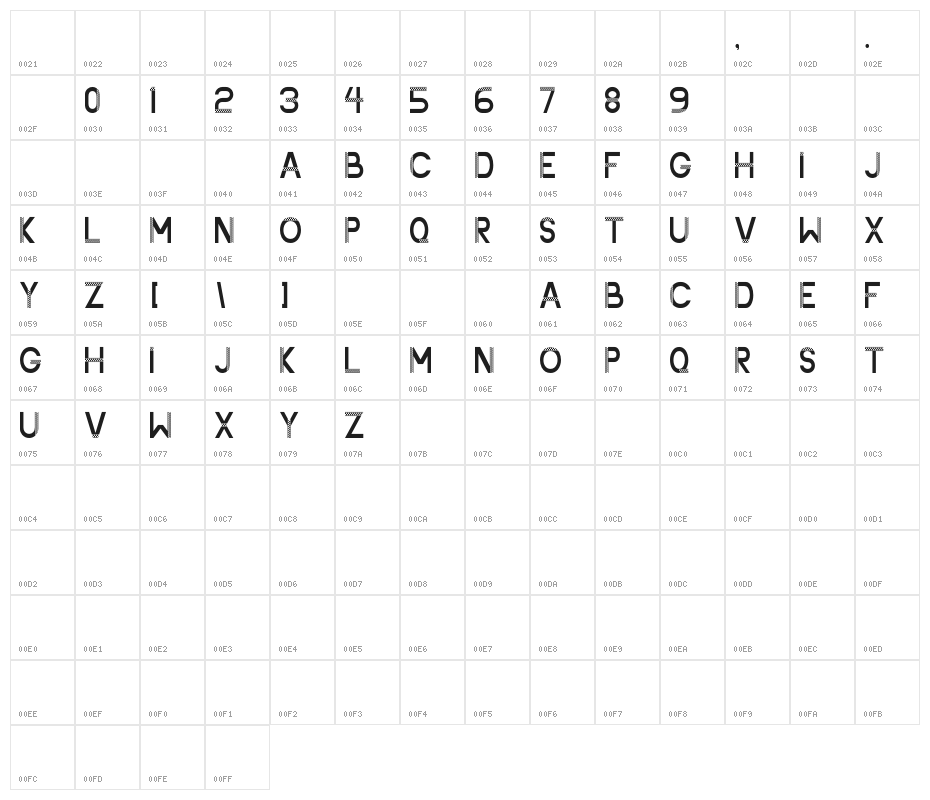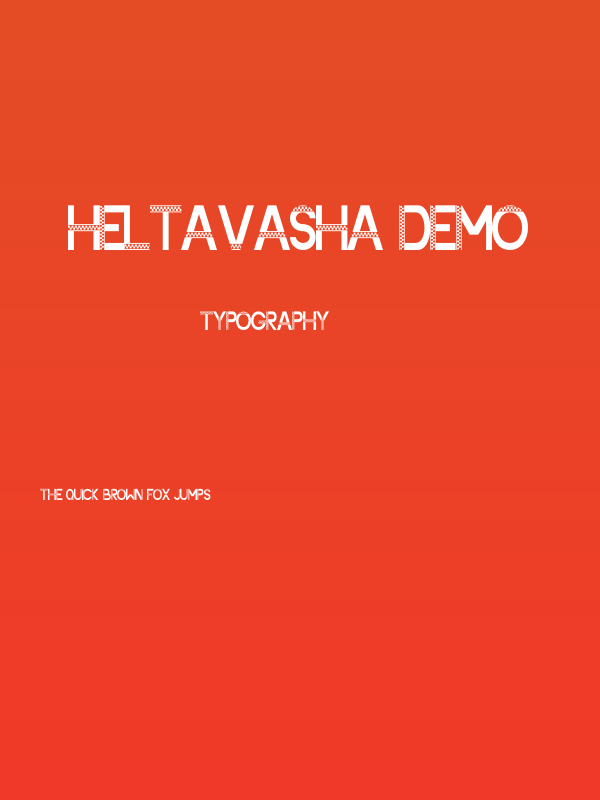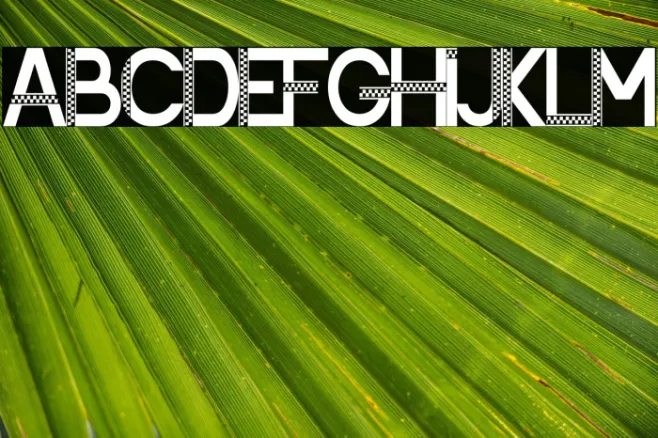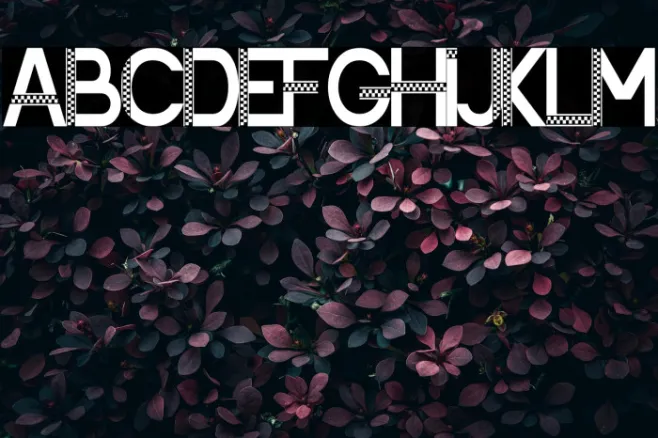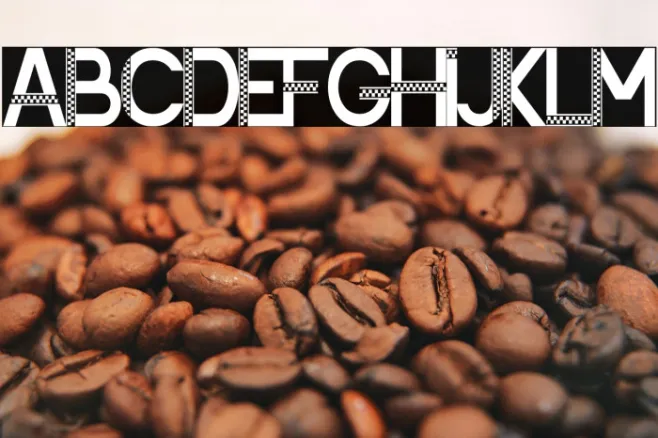
Heltavasha Demo Font
Heltavasha Demo Description
This font features a bold and striking design with a unique pattern integrated into the characters. The uppercase letters are characterized by a checkerboard pattern on one side, creating a dynamic visual effect. The overall appearance is modern and geometric, with clean lines and a strong presence. The numbers and punctuation marks follow the same design principles, ensuring consistency throughout the set. This font is ideal for projects that require a bold statement and a touch of creativity.
| Proposed Projects | Ideal for branding, posters, and creative design projects that require a bold and modern aesthetic. |